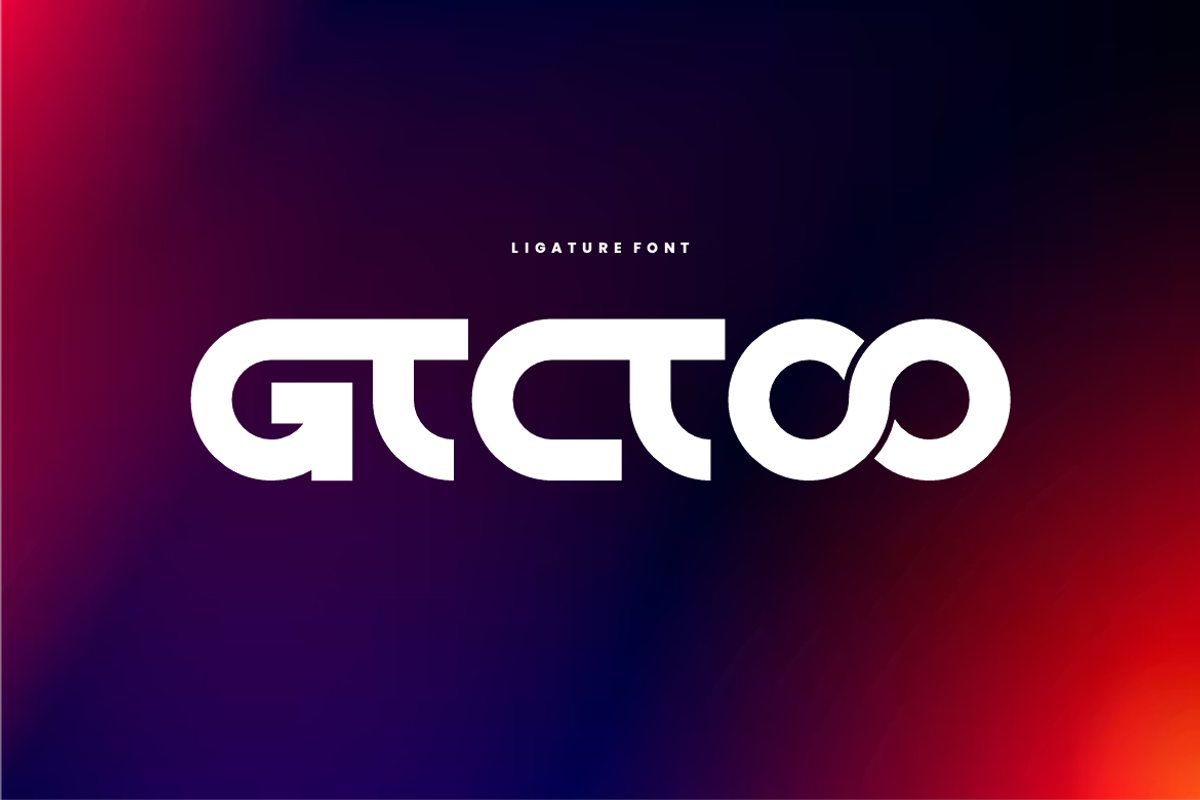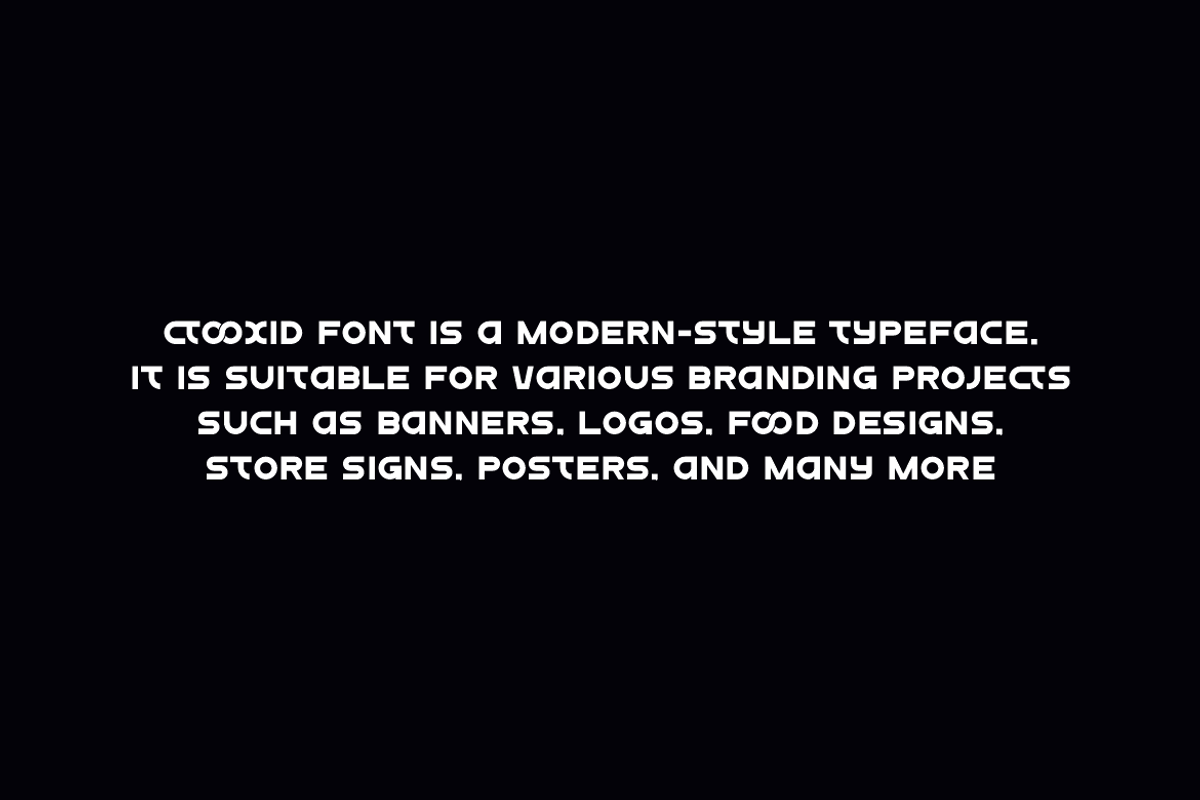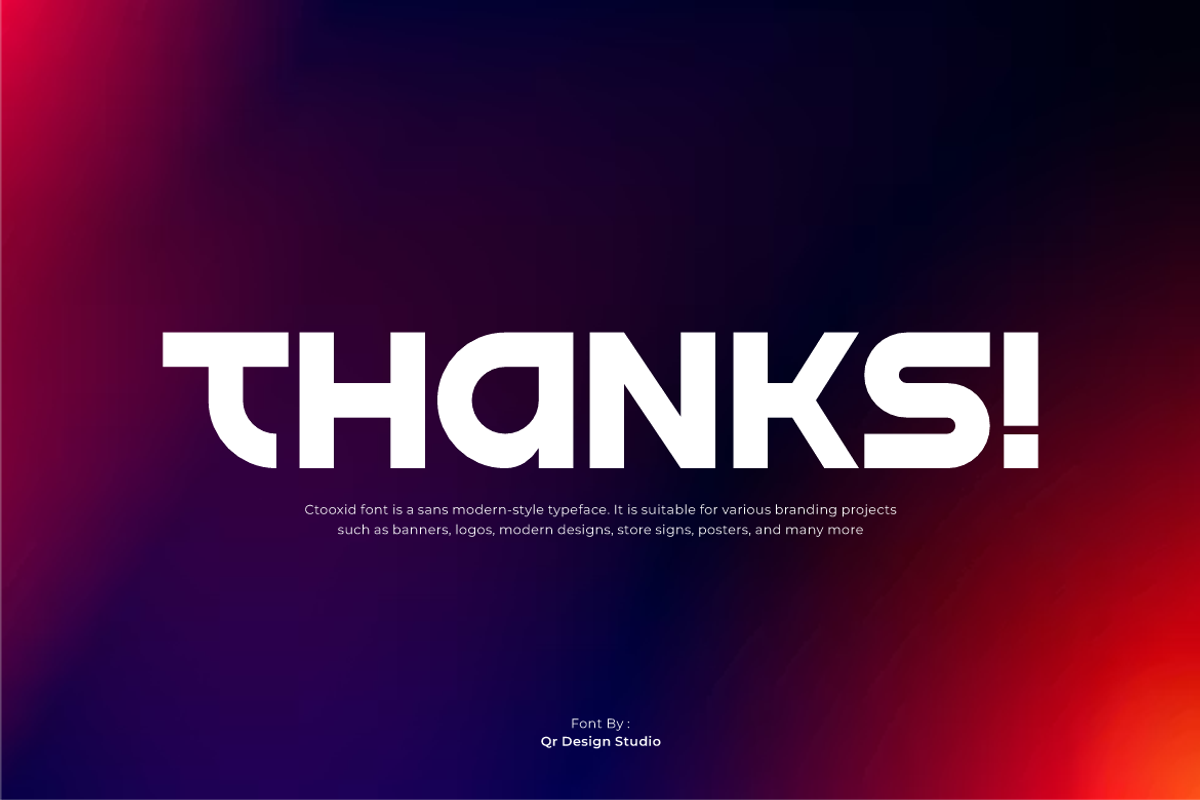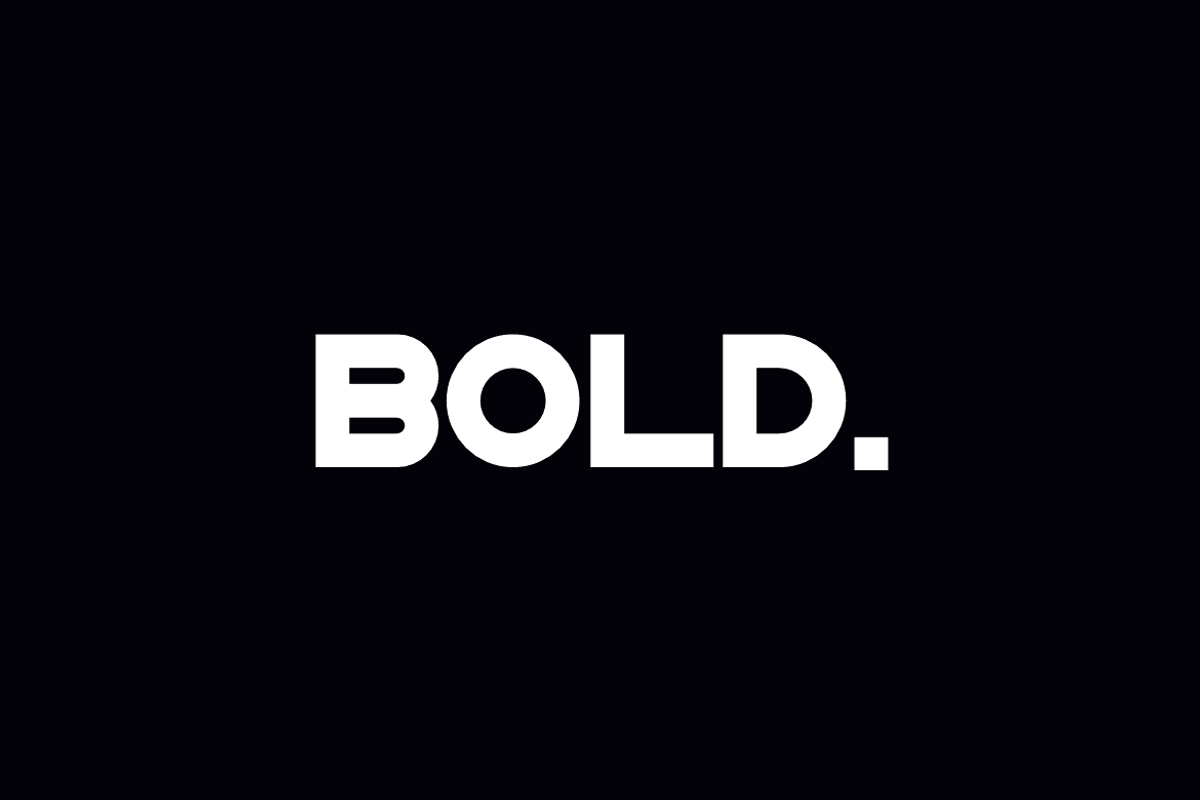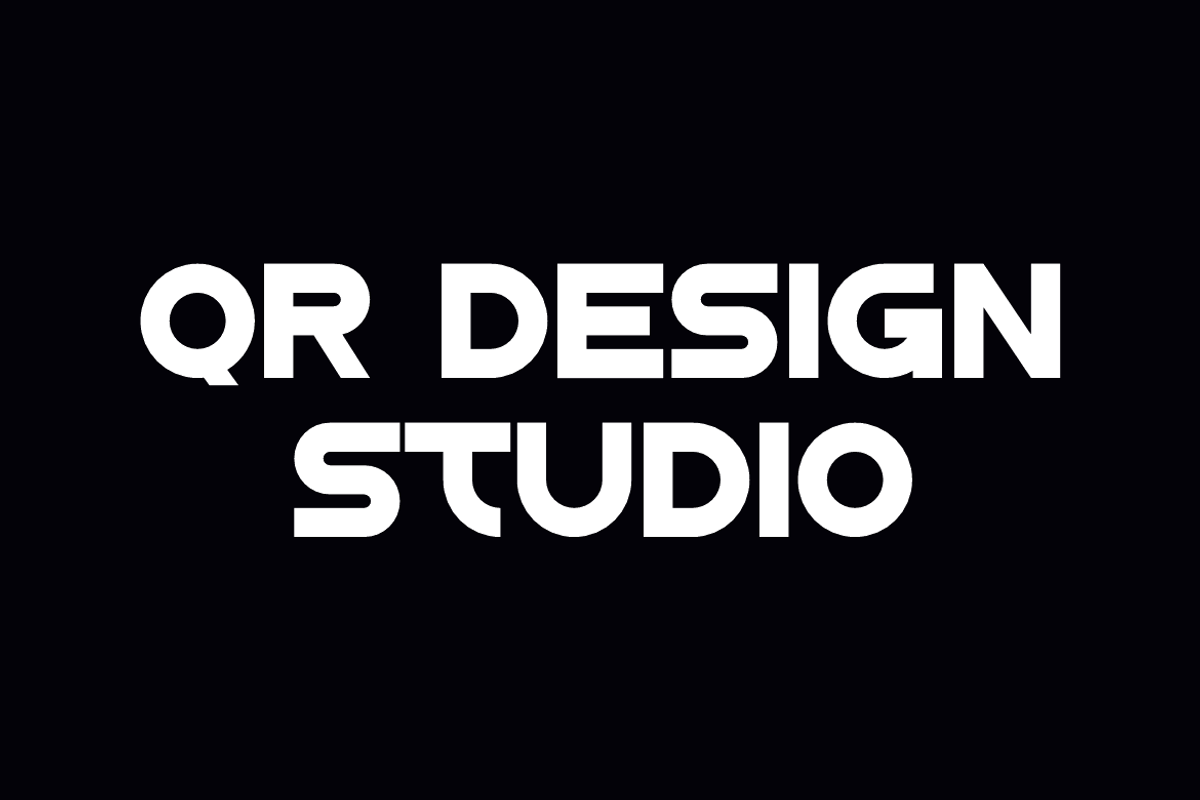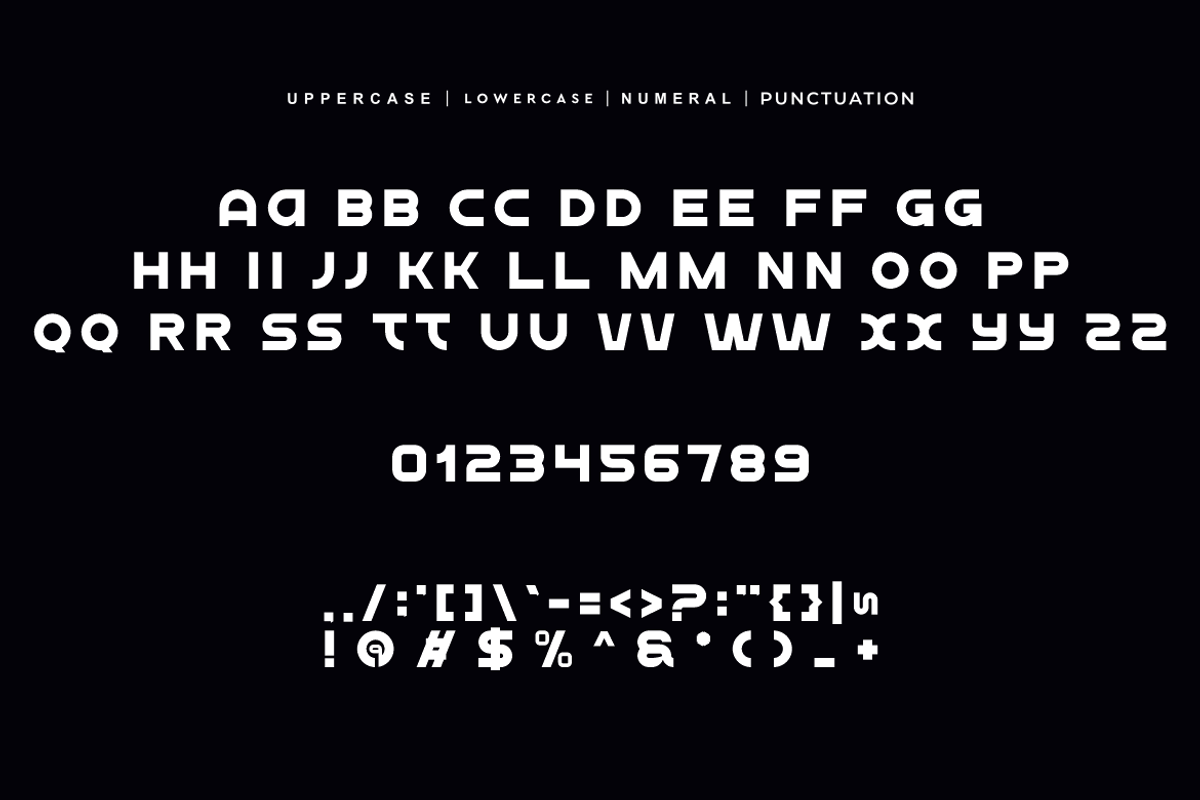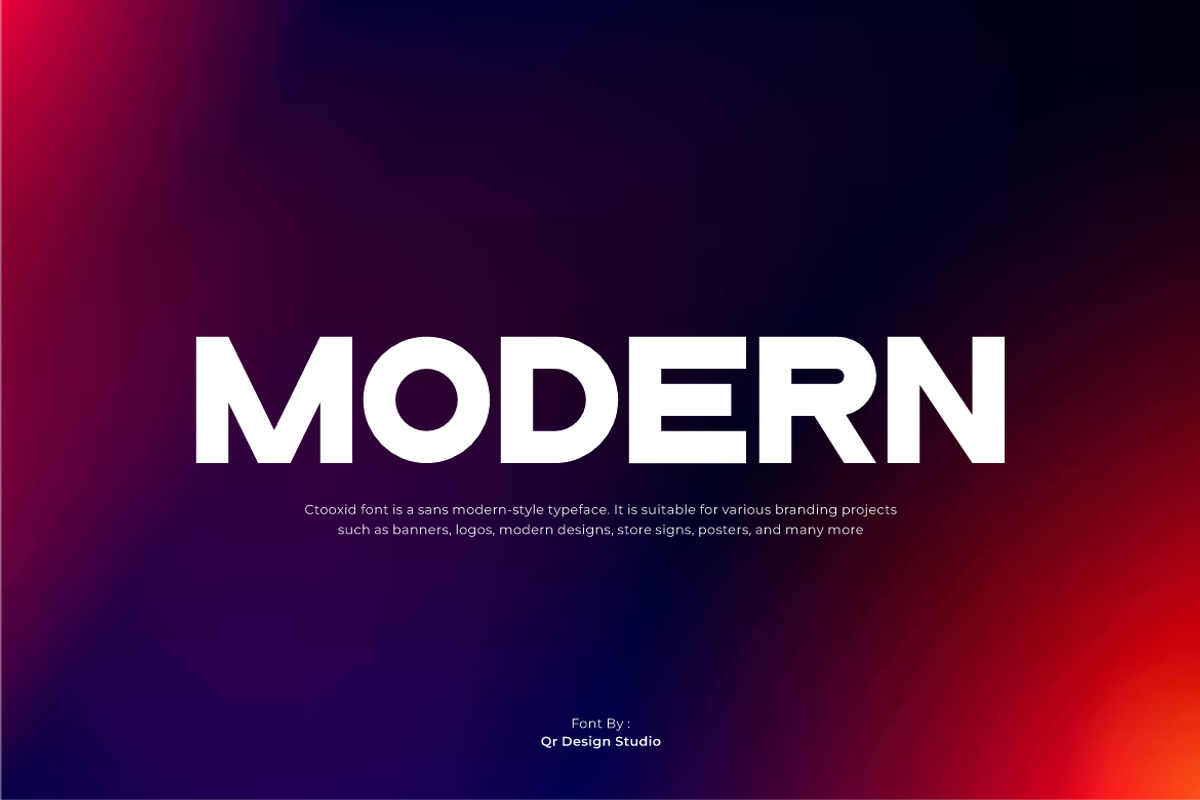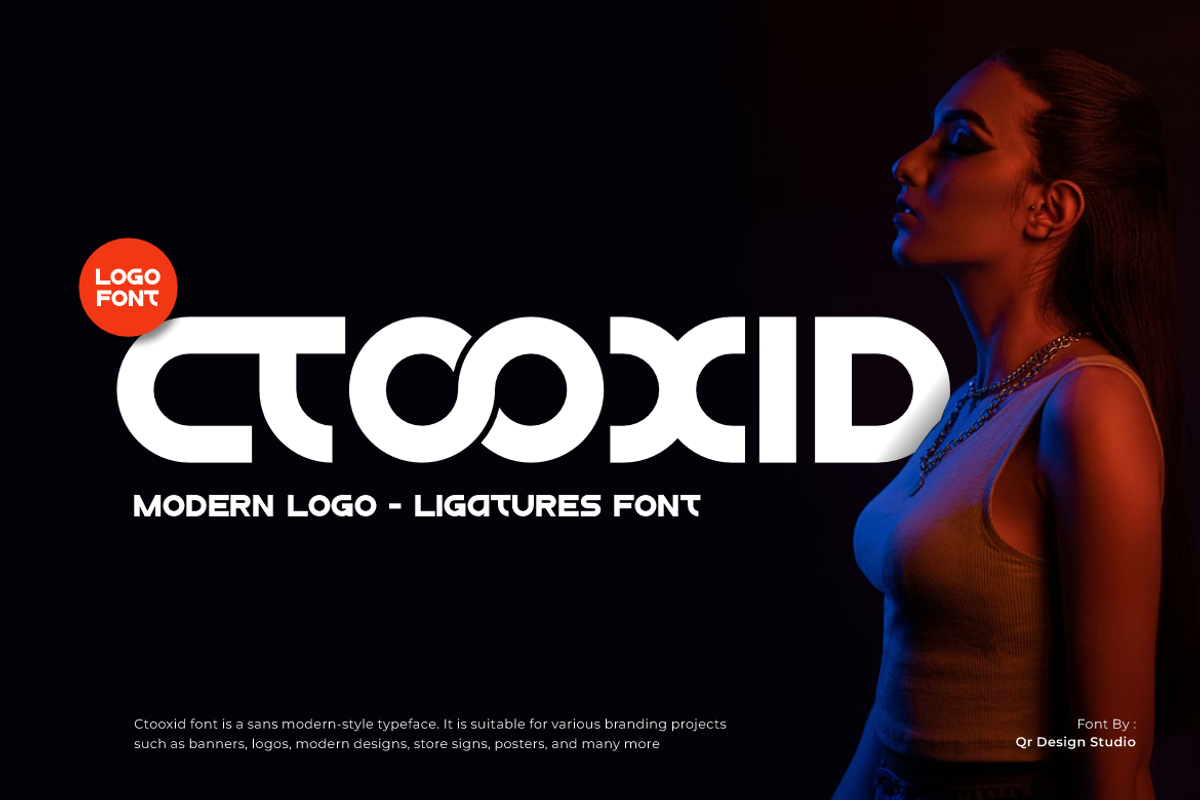
Ctooxid - Creative Logo Font
Ctooxid Font is a bold and authentic display typeface. It’s perfect for various branding projects such as logos, sports designs, and more. This font stands out beautifully in a wide range of contexts.